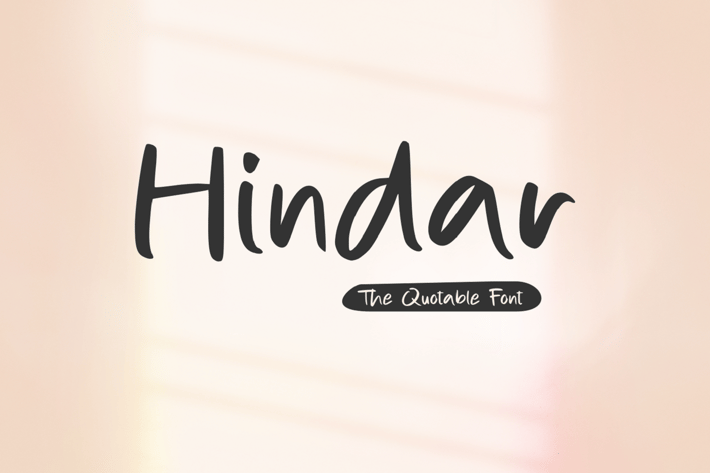
Hindar - The Quotable Font
Hindar - The Quotable Font, it’s perfect for quotes, logos, name card, magazine layouts, invitations, headers, or even large-scale artwork.